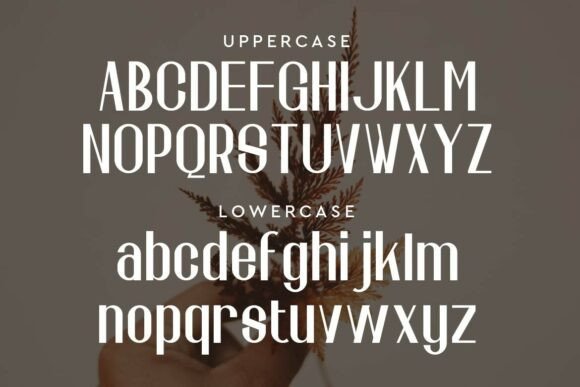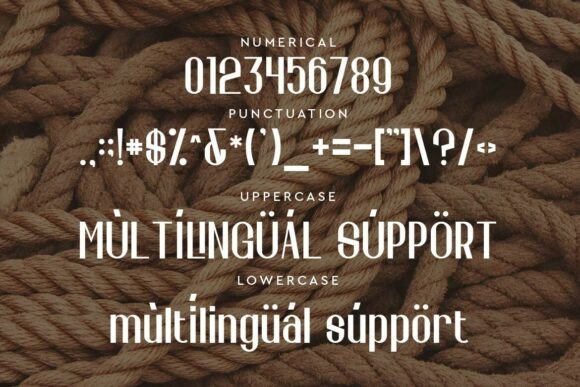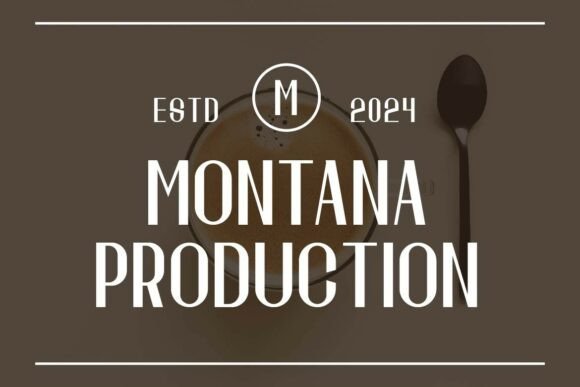
Introduction to Galine Font
Galine is a sleek and modern sans serif font that embraces the beauty of simplicity.
Designed with clean lines, smooth curves, and balanced spacing, Galine offers a calm, elegant presence perfect for branding, editorial layouts, packaging, digital content, and minimalist web design .
Key Features of Galine Font
Why Choose Galine Font?